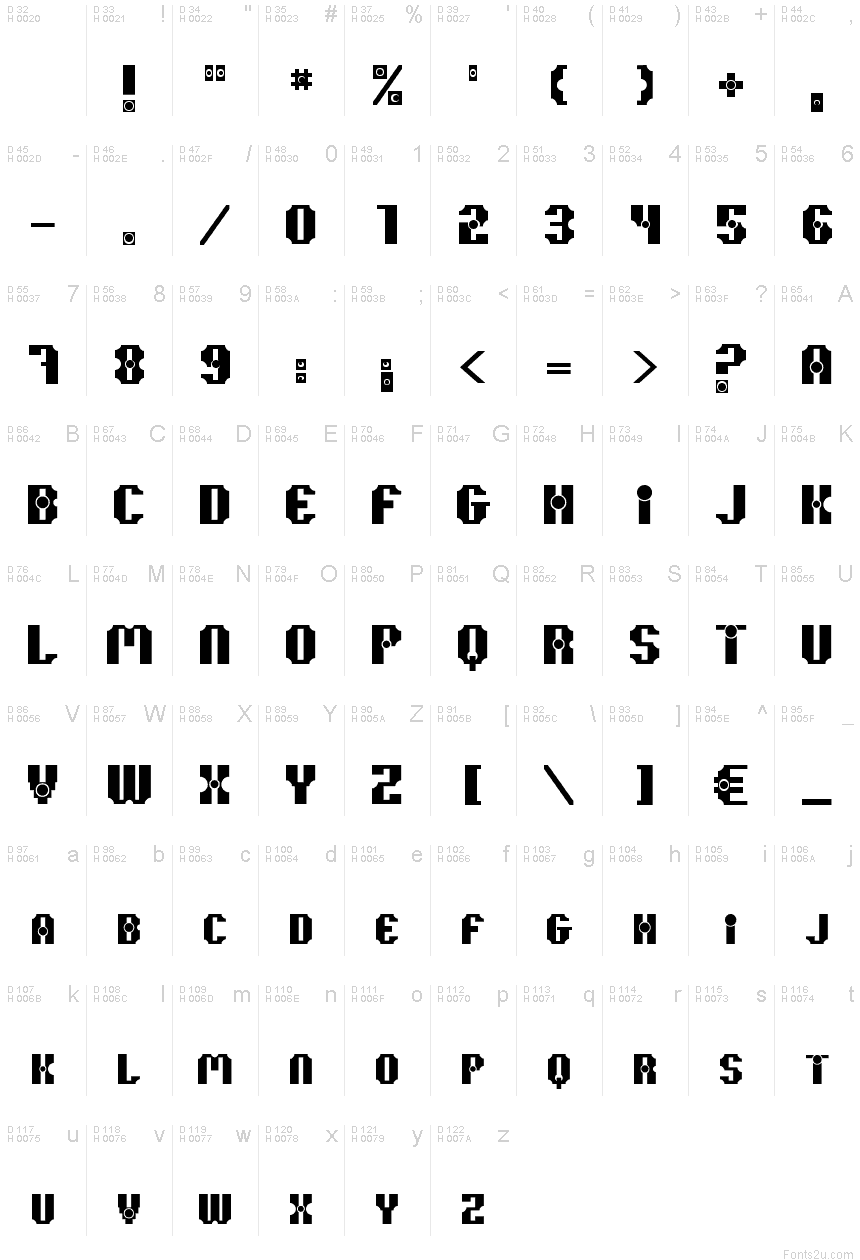
37 Kilobyte
37 Kilobyte is a bold, techno-inspired display font that commands attention. Designed by Dieter Schumacher, this typeface exudes a distinct industrial and futuristic aesthetic, with sharp angles and a striking geometric composition. The font's bold weight and clean lines make it an excellent choice for headlines, logos, and other high-impact design elements, lending a sense of strength and modernity to any project.
Its unique character shapes and minimalist style lend themselves well to a range of applications, from digital interfaces to print collateral, where a visually striking and tech-savvy typographic treatment is desired.